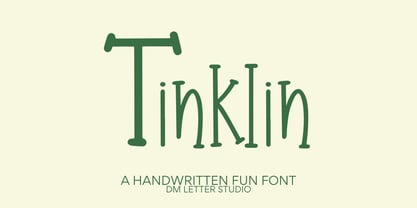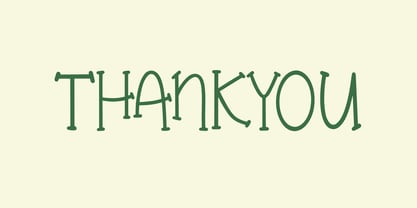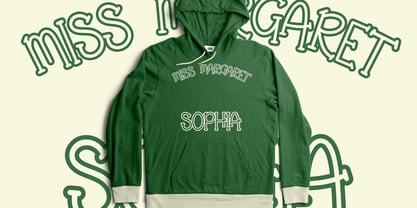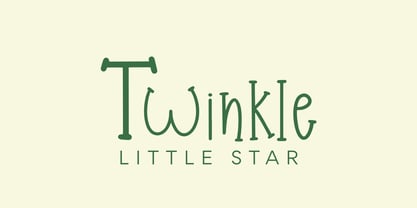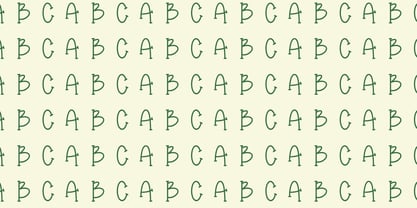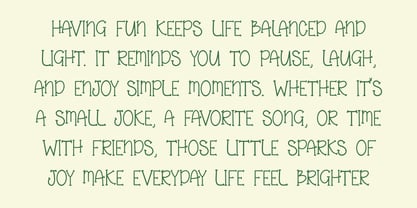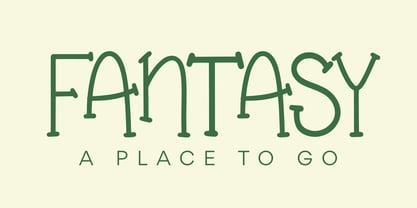
Tinklin
The Tinklin Font Family was designed by Dimas Prasetyo and published by DM Studio. Tinklin contains 1 styles. More about this family
Meet Tinklin, the Fun Monoline Serif Handwriting Font Tinklin is a playful monoline serif handwriting font with a subtle slab touch on the top and bottom of each letter. The strokes are consistent and smooth, giving it that clean monoline feel, while the tiny slab details add personality and structure. It blends casual handwriting charm with a hint of classic serif character. Use Tinklin for kids branding, packaging, stickers, book covers, social media graphics, and friendly logos. As a result, your designs feel cheerful, neat, and full of character. Why Tinklin sells First, Tinklin installs quickly and works smoothly in Canva, Photoshop, and Illustrator. Next, the monoline stroke keeps it clear and readable at different sizes. Then the small slab accents add uniqueness without making it heavy or formal. Moreover, this mix of fun and structure makes Tinklin versatile for both playful and semi-classic themes. Therefore, it works well for children’s products, educational materials, lifestyle brands, and creative merch. Fast layouts with the Tinklin Font Start with short titles or brand names to highlight the balanced monoline shape. After that, pair Tinklin with a clean sans serif for body text or a light script for contrast. Because the font is friendly and structured, it looks great on soft pastel backgrounds and minimal layouts. In addition, try slight letter spacing for a lighter, airy feel. Finally, save color palettes like sky blue and cream, peach and mint, lilac and ivory, or mustard and beige for cohesive collections. Creative uses and quick wins Kids book covers and educational graphics Sticker packs and planner designs Friendly logos and boutique packaging Social media quotes and playful posters What you get Uppercase and lowercase letters Numbers and basic punctuation Design tips for Tinklin Use Tinklin for headlines and medium-length phrases rather than long paragraphs. Also, keep backgrounds simple so the monoline details stay clear. For print, export at 300 DPI to maintain crisp slab edges. For digital use, scale slightly larger so the fine details remain sharp on mobile screens. Finally, avoid heavy shadows and let the clean monoline structure shine.